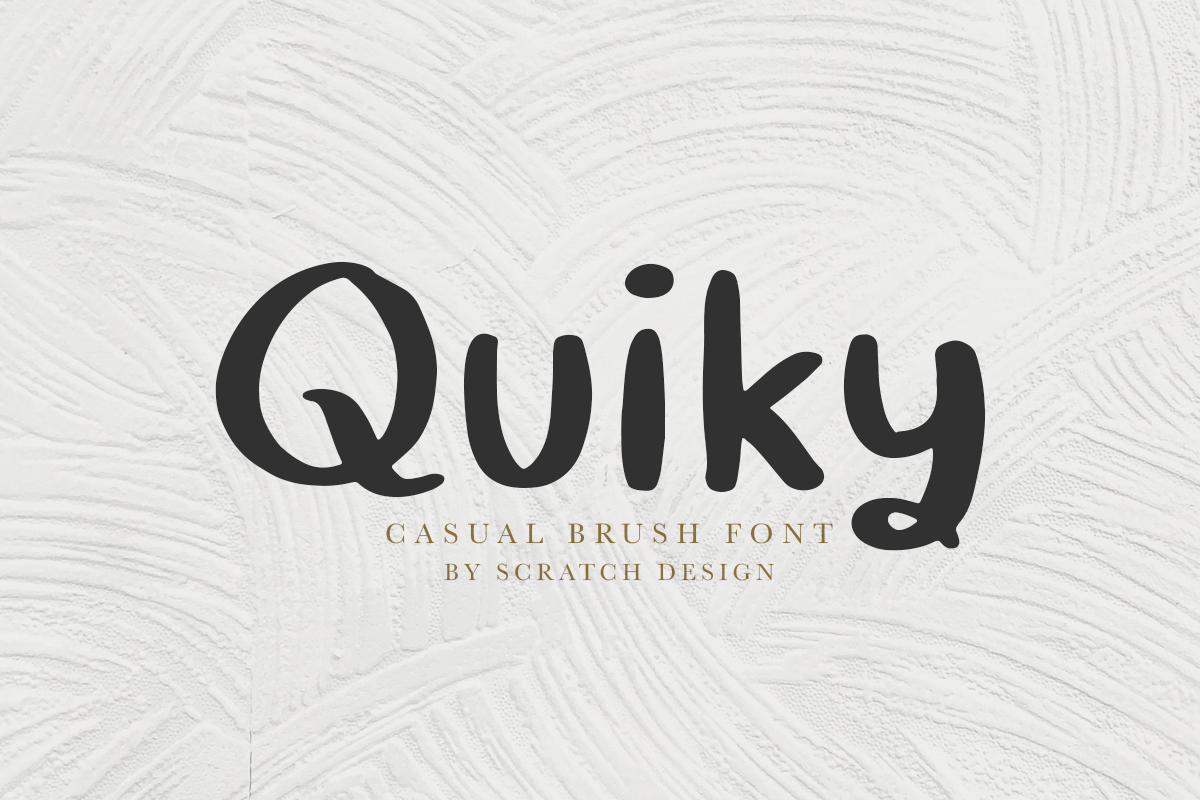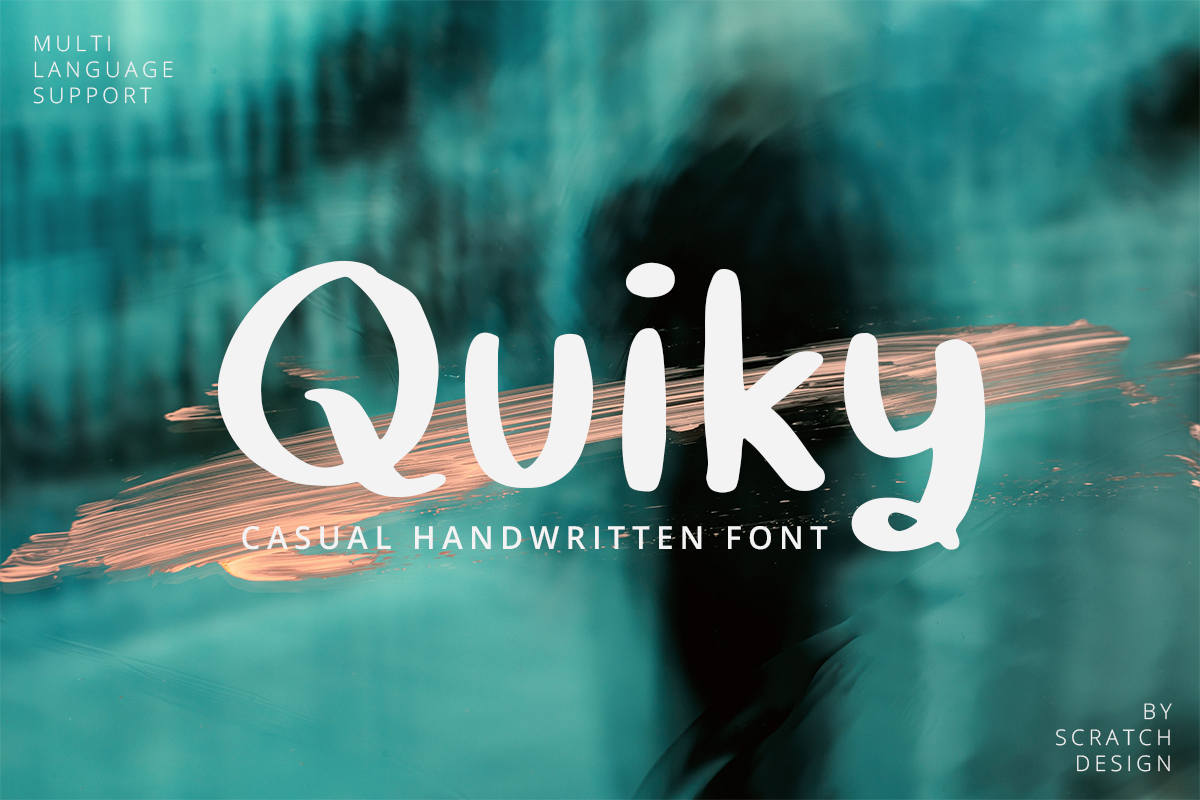
Quiky
Quiky-Regular
Introducing our Quiky! A playful, hand lettered font. It has smooth lines, a heavy weight, sweet curves and a lot of characters that you can named it. Quiky suits for your design such as invitation design, stationery, branding, blog design, advertising design, card, art quote, home decor, book title, special events and more. This font also includes Latin Characters for languange support.
Feature:
• Number
• Punctuation.
• Multilingual Support (ÀÁÂÃÄÅÇDÐEÈÉÊËIÌÍÎÏNÑOØÒÓÔÕÖUÙÜÚÛWYÝŸỲŸÆŒßÞþ)